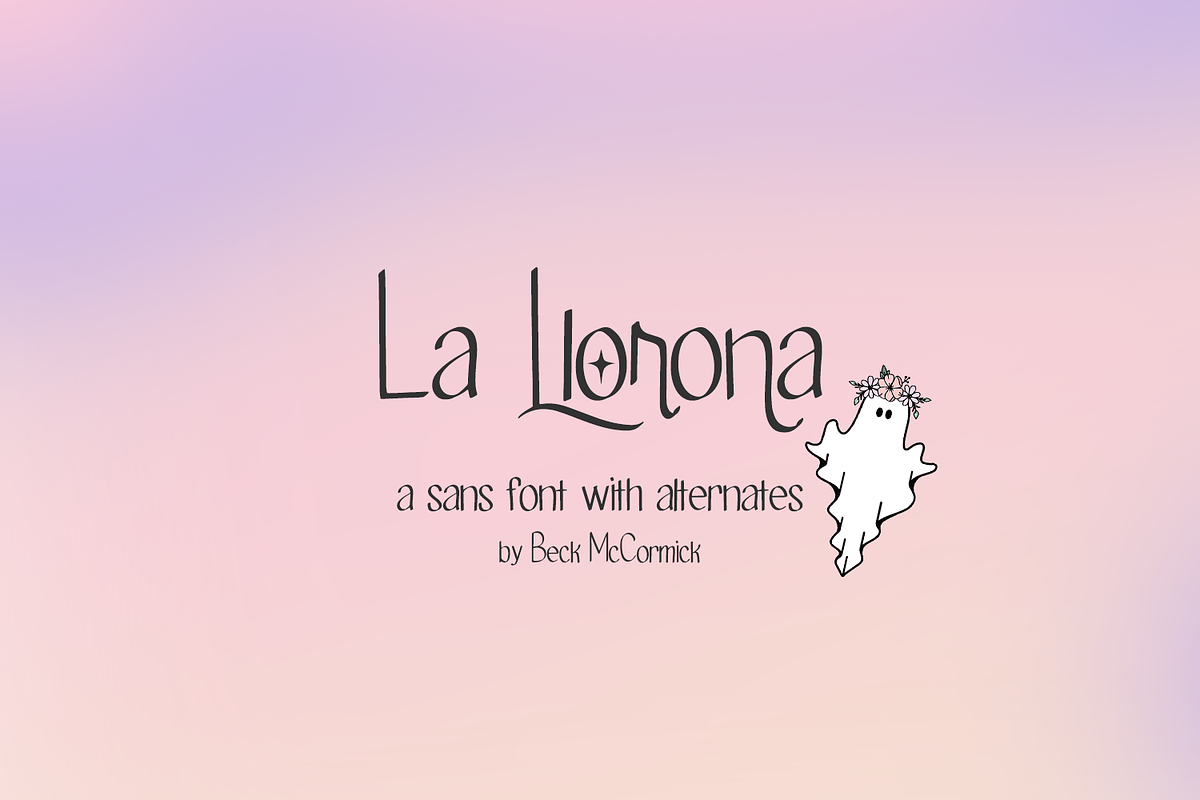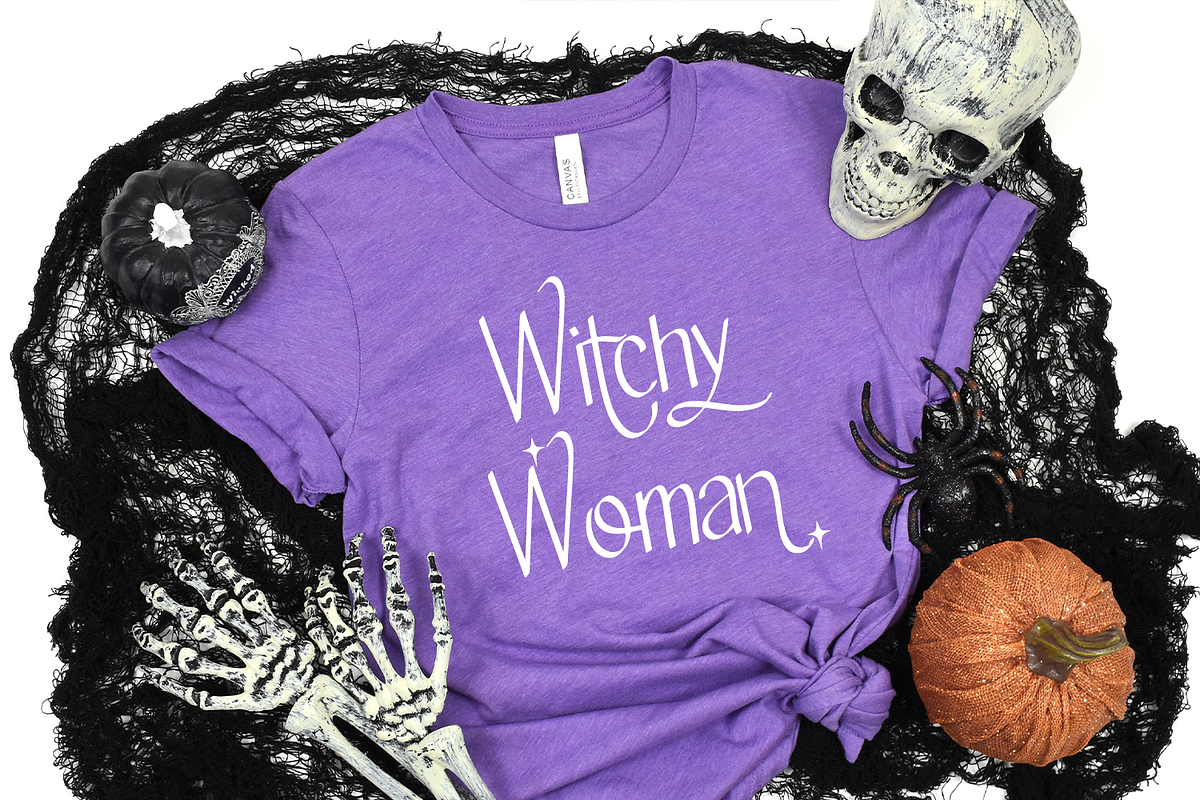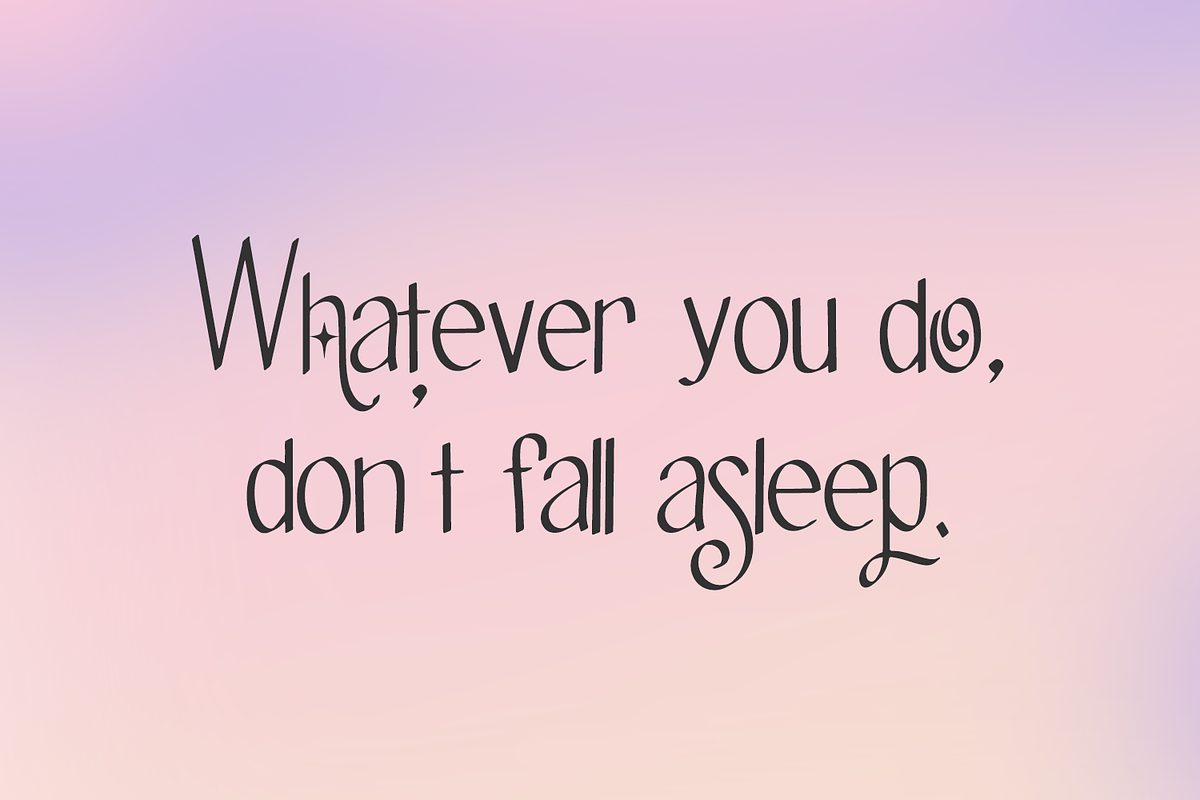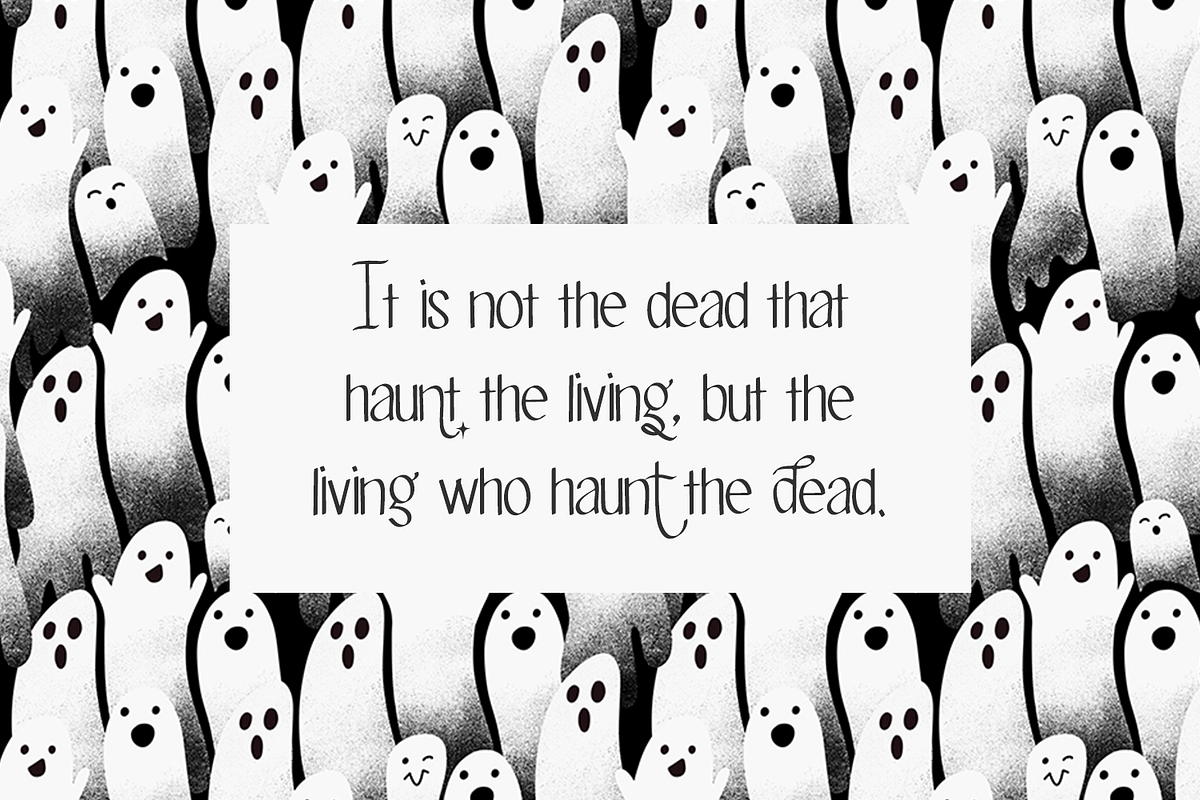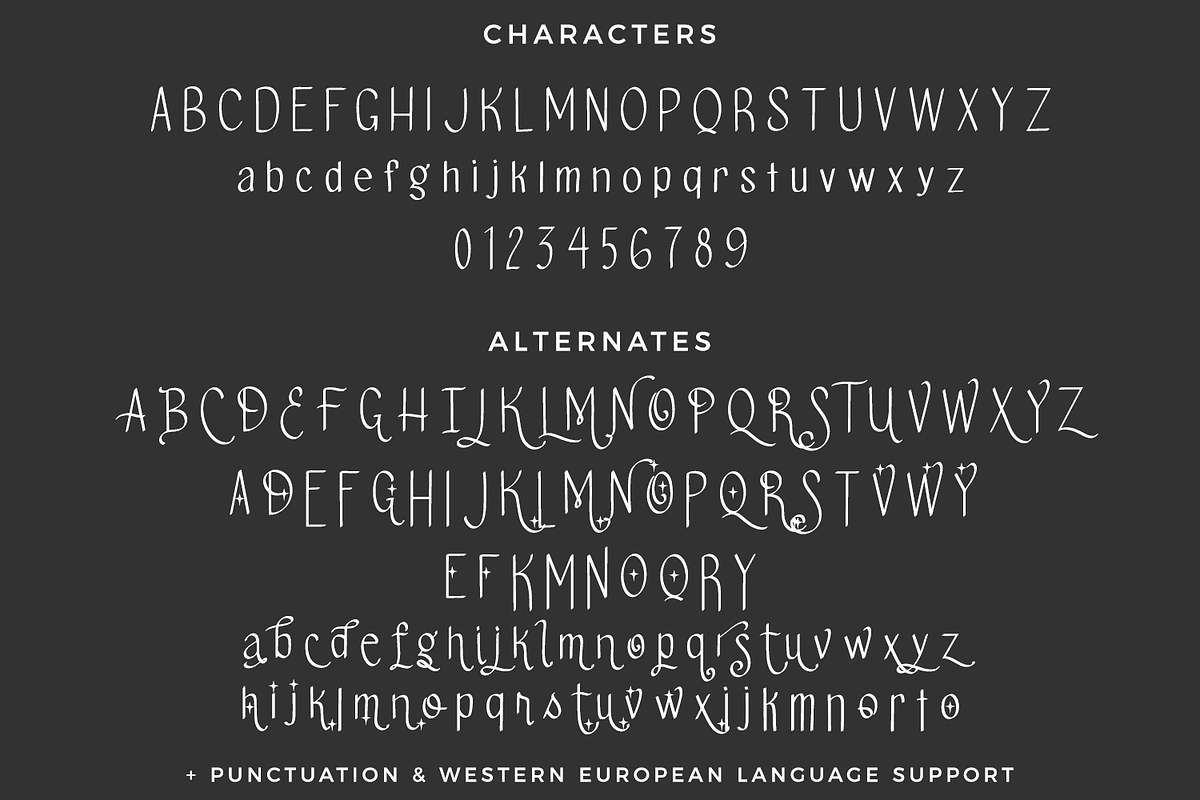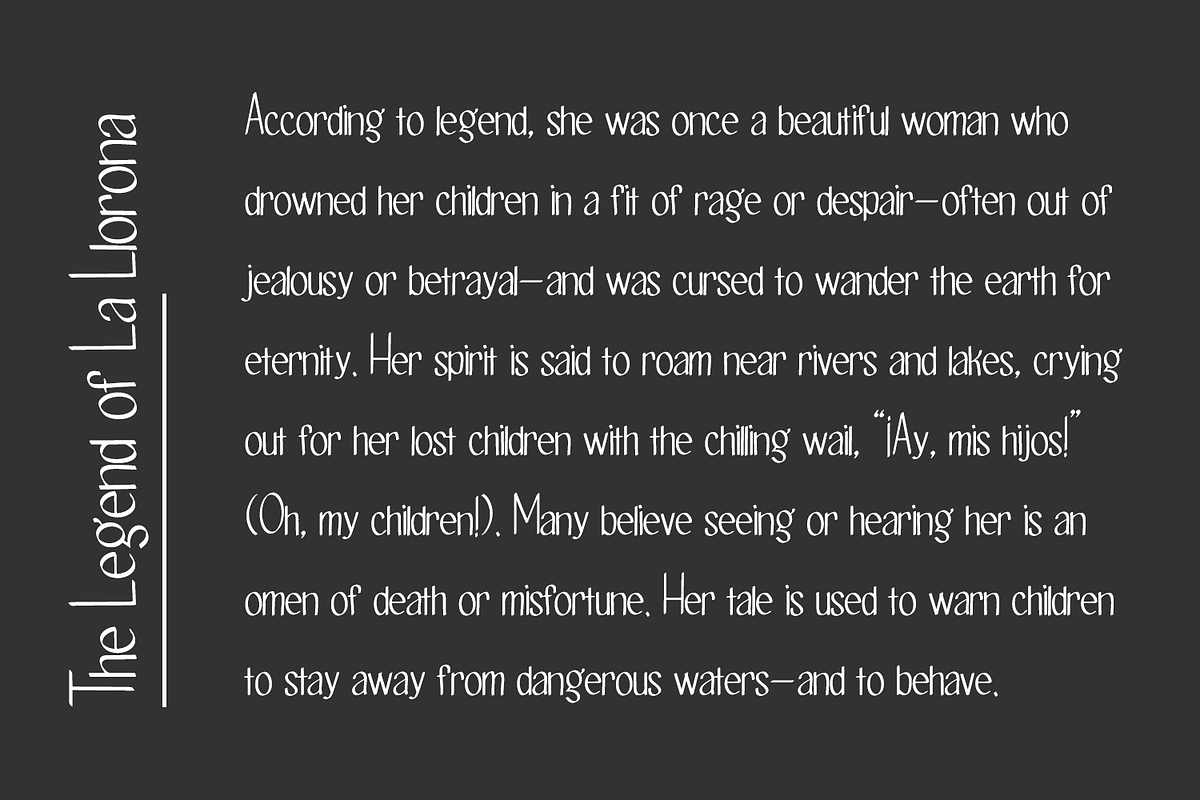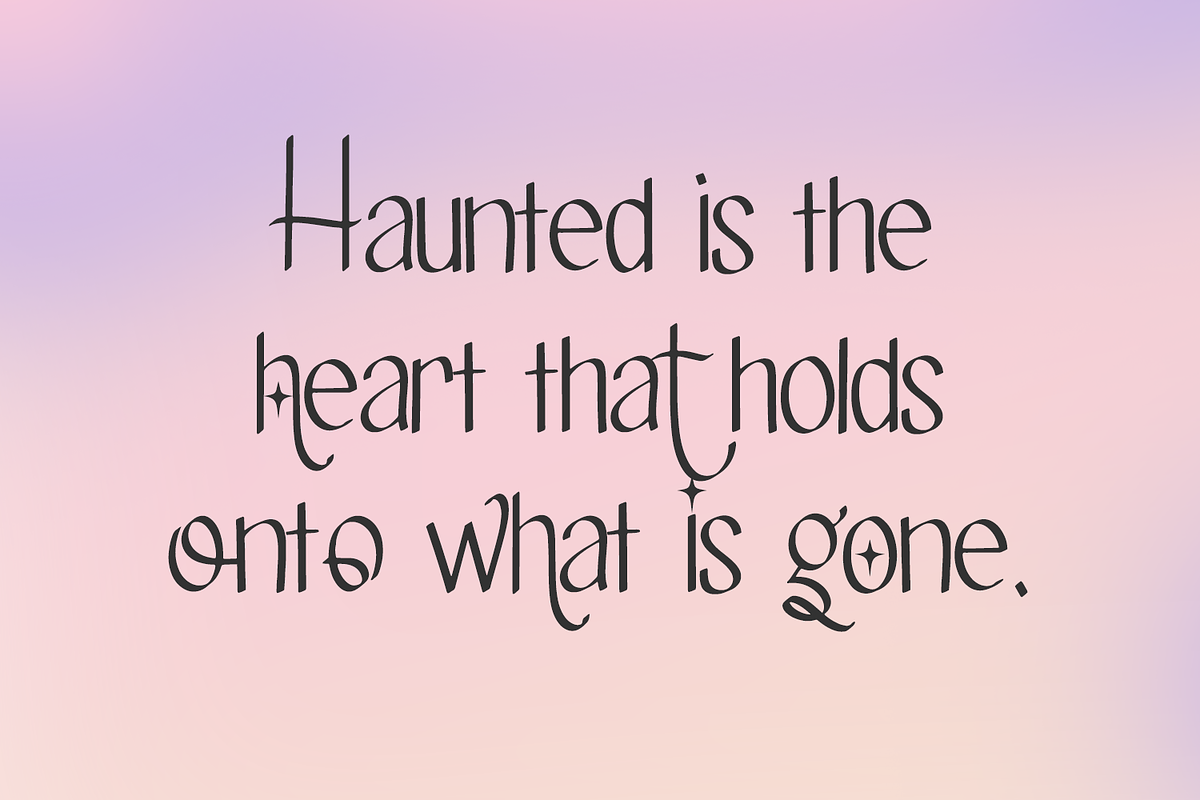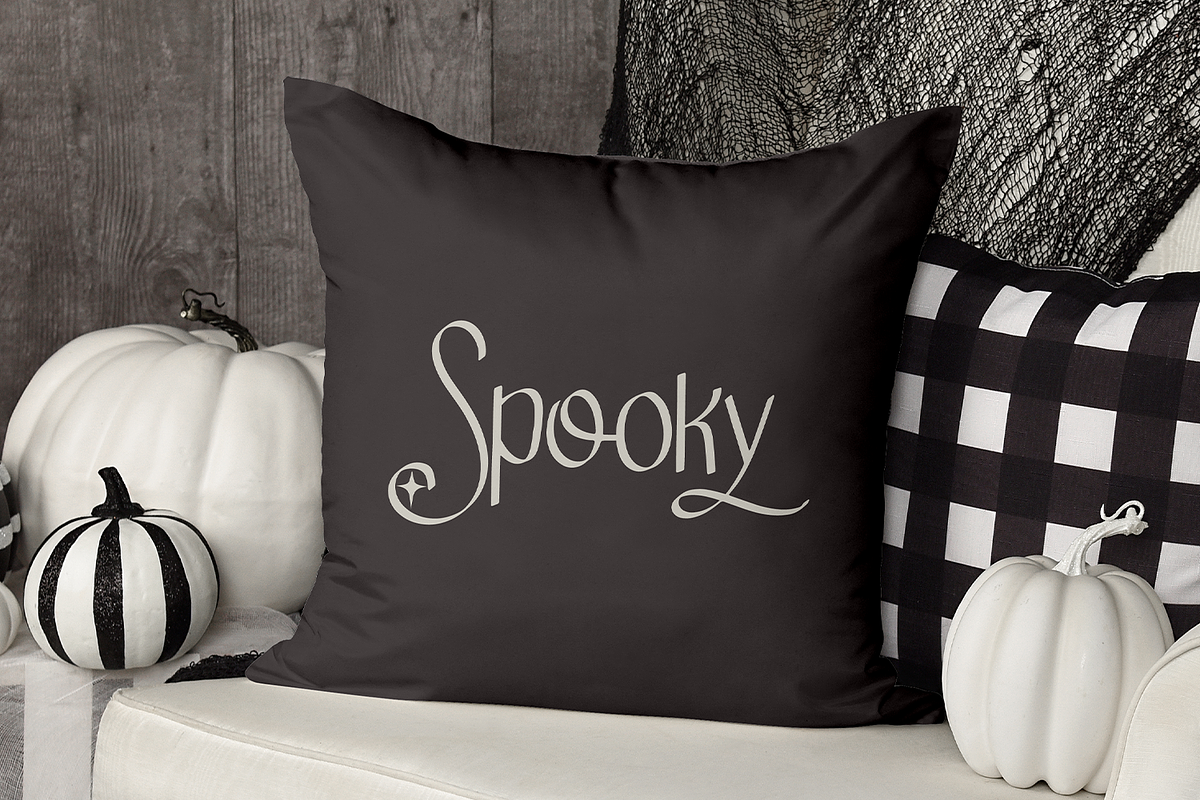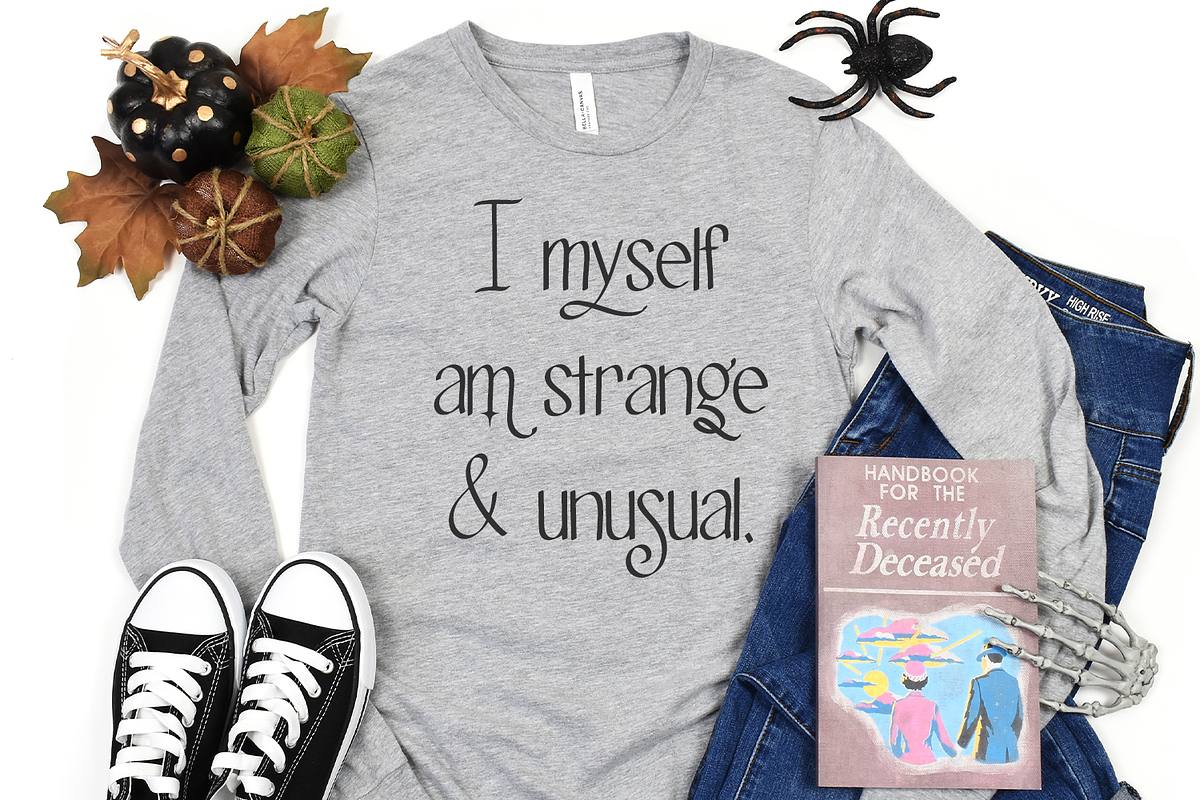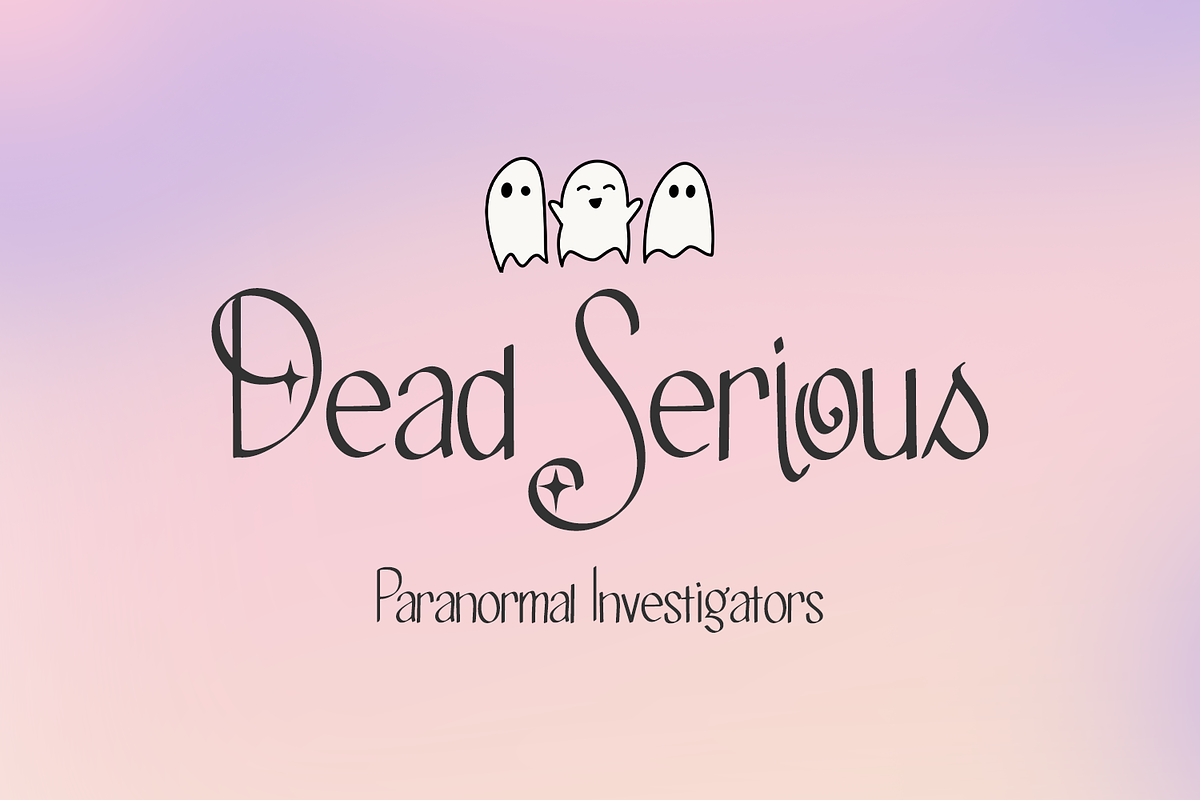
La Llorona Sans
Introducing La Llorona, a haunting sans font. La Llorona is a fantastic fit for your eerie designs. This font is well-suited for Halloween crafting projects with your Cricut or Silhouette machine, and can be used for things like shirts, signs, labels, marketing materials, social media, SVG designs, greeting cards & other print items, and even spooky logos & branding. La Llorona would also be a great fit for any projects that are tarot, magic, witch, or celestial-themed. There are many alternate characters in La Llorona, so you can customize your text with flourished characters, or characters with stars.
La Llorona includes:
- full upper + lowercase characters
- numbers + punctuation
- 109 alternate characters
- Western European language support - English, French, Spanish, Portuguese (Brazil), Portuguese (Portugal), Italian, German (Germany), German (Austria), Dutch, Danish, Swedish, Norwegian (Bokmål and Nynorsk), Finnish, Icelandic, Irish, Welsh